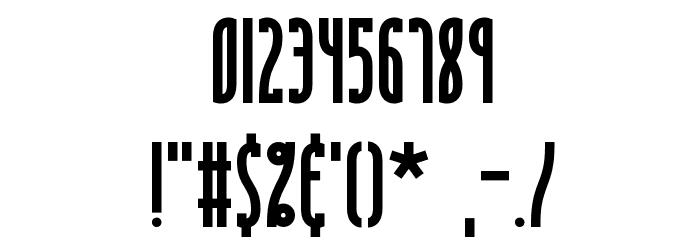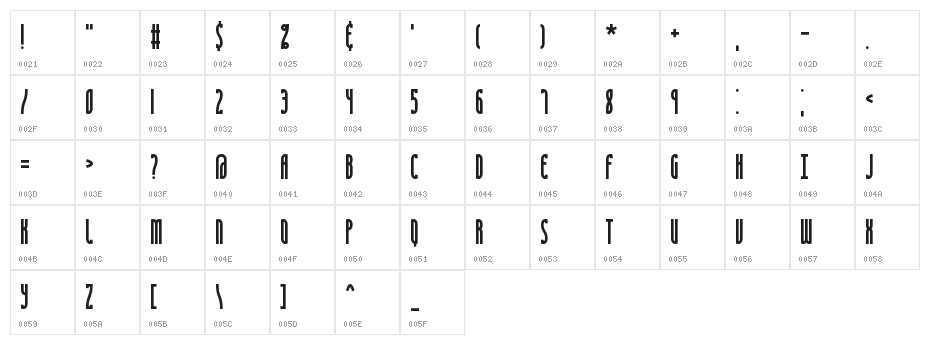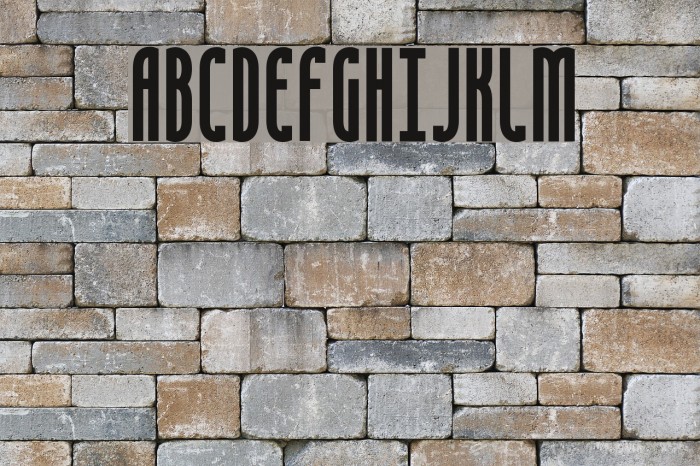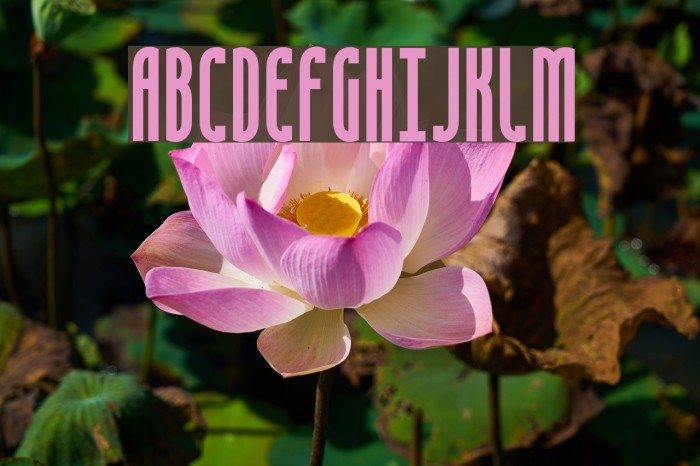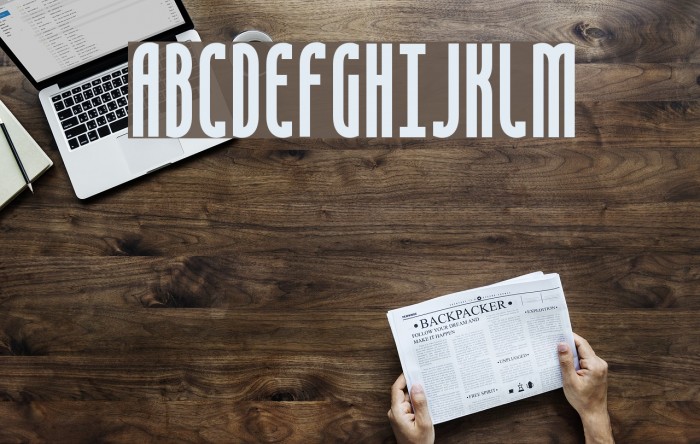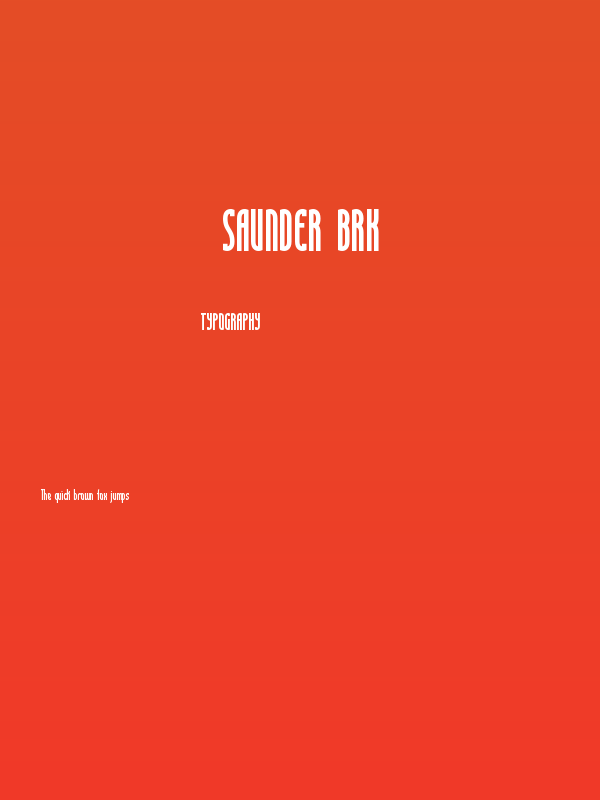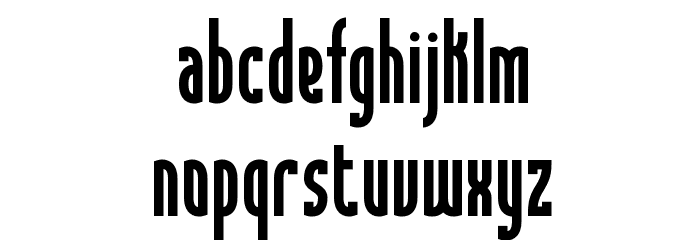
Saunder BRK Font
Saunder BRK Description
This font features a bold and condensed style with a modern flair. The uppercase letters are tall and narrow, giving a strong vertical emphasis. The lowercase letters maintain the condensed look, ensuring consistency across text. The numbers are similarly styled, with a uniform height that aligns well with the uppercase letters. Special characters are distinct and easily recognizable, maintaining the overall aesthetic. The font's design is clean and straightforward, making it suitable for impactful headlines and attention-grabbing displays.
| Proposed Projects | Ideal for posters, headlines, branding, and any project requiring a strong visual impact. |